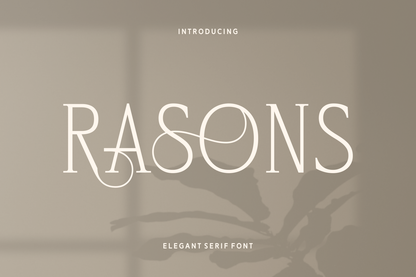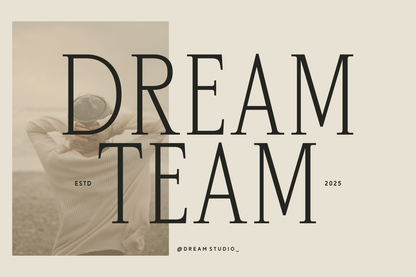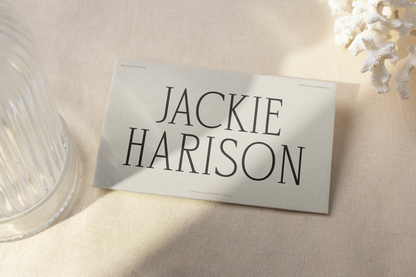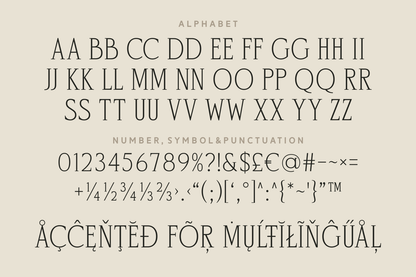
Rasons is a refined and graceful serif font designed with elegant ligatures and flowing swashes. Perfectly suited for upscale branding, editorial layouts, logos, and wedding invitations, Rasons adds a touch of modern romanticism to any design. Its minimalist style combined with ornate flourishes strikes the perfect balance between clean and classy.